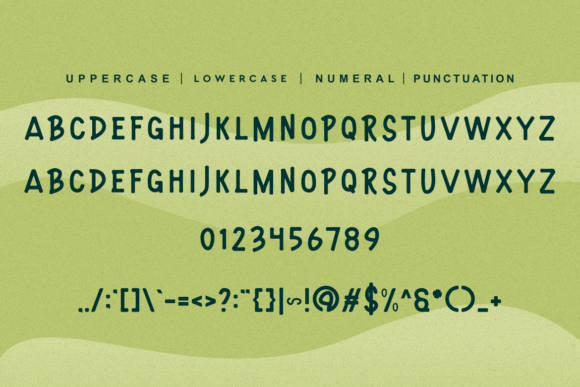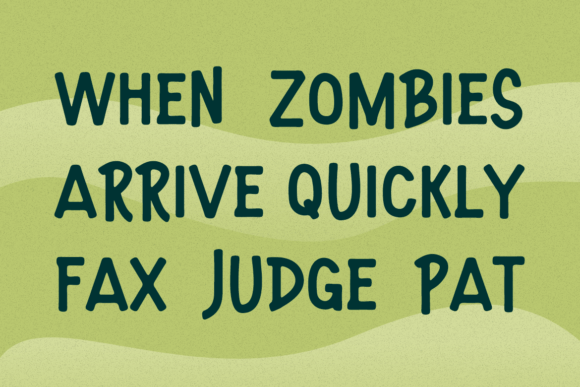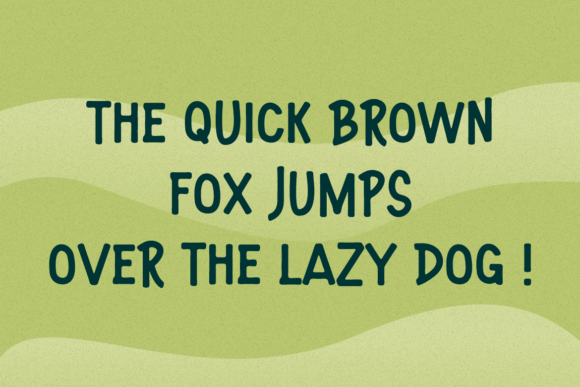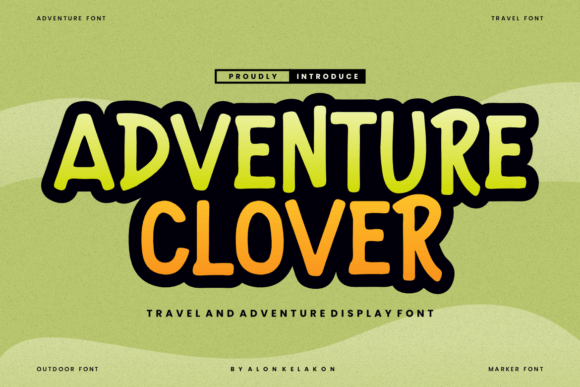
The Joy of Adventure Clover Font: A Designer’s New Best Friend
I’ll never forget the time I was working on a project for a children’s brand, and I just couldn’t find the right font to capture the playful, adventurous spirit of the brand. The client wanted something that would appeal to kids and parents alike, but everything I tried seemed either too boring or too over-the-top. That’s when I stumbled upon Adventure Clover Font, and it was love at first sight! 💕
This cute and quirky display font has since become a staple in my design toolkit, and I’m excited to share its awesomeness with you. Whether you’re a designer, crafter, or creative hobbyist, Adventure Clover Font is sure to add an incredibly joyful touch to your designs.
So, what makes Adventure Clover Font so special? Here are a few things I love:
- ✨ Its playful, hand-drawn feel is perfect for designs that need a bit of whimsy
- ✅ It’s incredibly versatile and works well for titles, headings, and even short paragraphs
- 💥 The font comes with a range of OpenType features, including glyphs and stylistic alternates, which allow for endless creative possibilities
Of course, no font is perfect, and Adventure Clover Font has a few small quirks:
- 🤔 It can be a bit overpowering for body text, so it’s best used as a display font
- ⚠️ Some of the glyphs and special characters can be a bit finicky to access, but that’s just part of the font’s charm
The Story Behind Adventure Clover Font
While the true story behind Adventure Clover Font remains a mystery, it’s easy to imagine that it was created by a designer who loves adventure and good design. Perhaps they were inspired by a childhood spent exploring the great outdoors, or by a passion for crafting and DIY projects. Whatever the inspiration, the result is a font that’s both fun and functional.
| What makes Adventure Clover Font so special? | Its playful, hand-drawn feel and versatility make it perfect for a wide range of designs. |
| Is Adventure Clover Font easy to read? | While it’s a display font, Adventure Clover Font is still relatively easy to read, especially at larger sizes. |